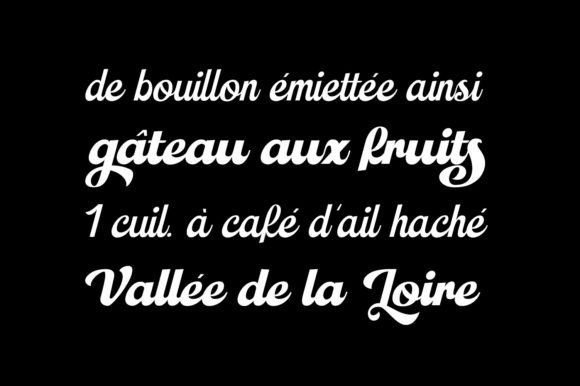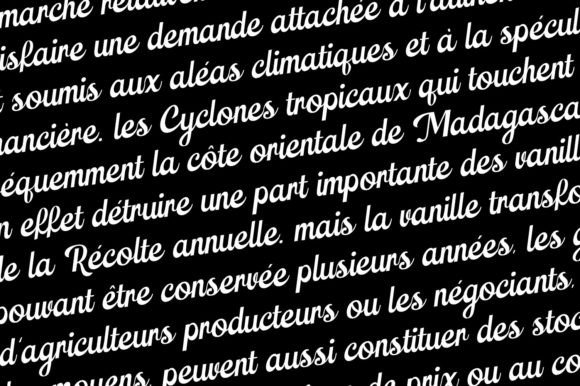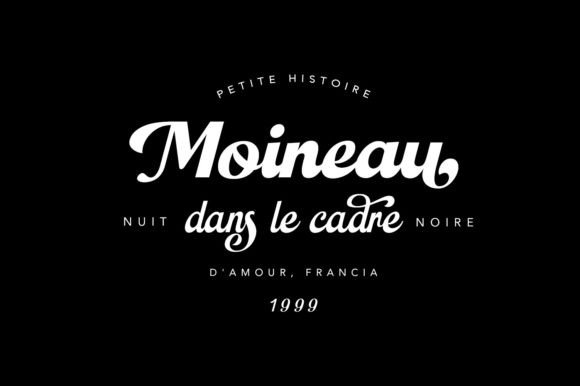
Introduction to Leftis Font
As designers, we’ve all been there – staring at a blank canvas, trying to bring our creative vision to life. The perfect design resource can be the difference between a mediocre project and a masterpiece. And that’s where the Leftis Font comes in – a versatile and high-quality script font family that’s about to become your new go-to design companion.
| 👤 Author | Naksatra type |
With its elegant contrast style, the Leftis Font offers a range of typefaces, from thin to bold and italic, giving you the flexibility to add a unique touch to your design. Whether you’re working on a logo, branding, or a creative project, this font is sure to elevate your work to the next level. And the best part? The Leftis Font is available for free download, making it an accessible design resource for designers of all levels.
Unlocking the Power of Leftis Font
One of the standout features of the Leftis Font is its multilingual support, making it an ideal choice for designers working on global projects. Plus, with its stylistic alternate glyphs and textual ligature, you’ll have endless possibilities to experiment and create something truly unique. So, why settle for a generic font when you can have a high-quality design resource like the Leftis Font that will take your work to new heights?
Key Features of Leftis Font
- Each font is carefully crafted to provide a unique and stylish look, making it perfect for branding, logos, and typography-based designs.
Honest Review: Leftis Font
As a designer, I’m always on the lookout for high-quality fonts to enhance my creative projects. Recently, I stumbled upon the Leftis Font, and I’m excited to share my thoughts on this design resource.
Here’s what works well: ✨ The Leftis Font has a unique, modern aesthetic that’s perfect for contemporary designs. It’s free to download, making it an excellent addition to any design arsenal. I appreciate the transparent background, which allows for seamless integration into various design elements.
Some limitations to consider: ⚠️ While the Leftis Font is versatile, it may not be suitable for projects requiring a more traditional or formal look. Additionally, some users may find the font’s modern style too bold or overpowering.
Overall, I’m impressed with the Leftis Font’s potential for adding a touch of sophistication to modern designs. With its free download and transparent background, it’s an excellent choice for designers working on a variety of creative projects.
- Unique, modern aesthetic
- May not be suitable for traditional or formal designs
- Can be overpowering in certain contexts
Designing with Leftis Font
Getting the Most Out of Leftis Font
For optimal results, experiment with different font sizes, colors, and styles to match your design’s aesthetic. You can also combine Leftis Font with other design elements to create a unique look. Don’t be afraid to push the limits of this font to achieve your creative vision.
Leftis Font is perfect for creating logos, branding materials, social media graphics, and typography-based designs. Its clean and modern design makes it ideal for various industries, including tech, fashion, and healthcare.